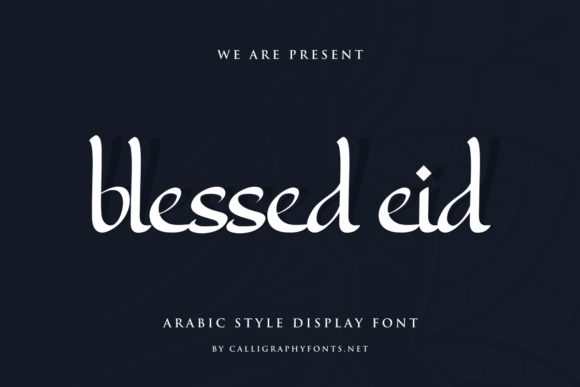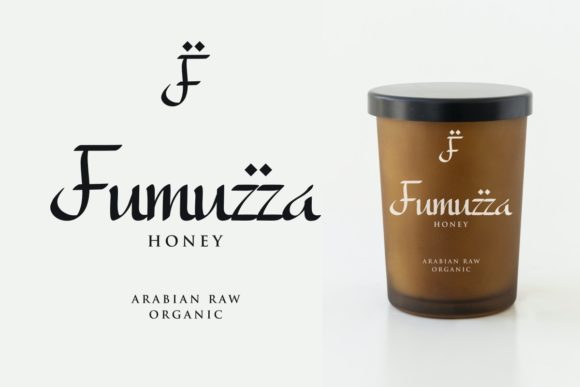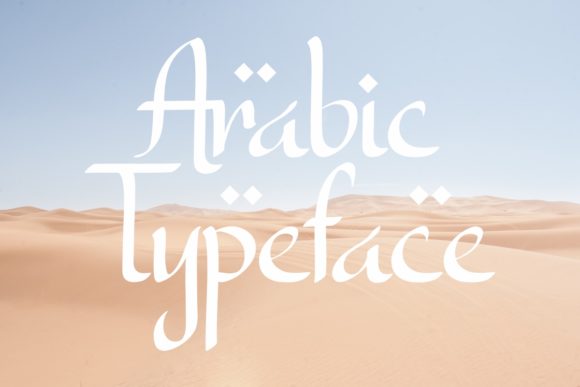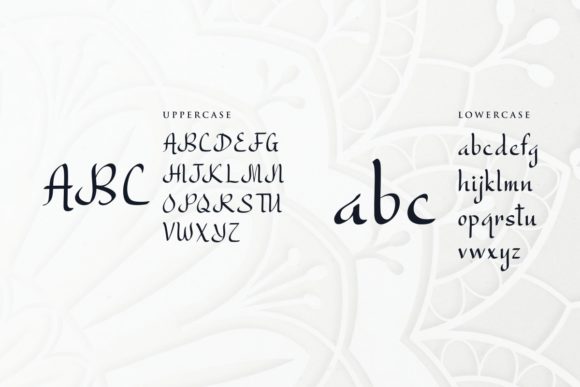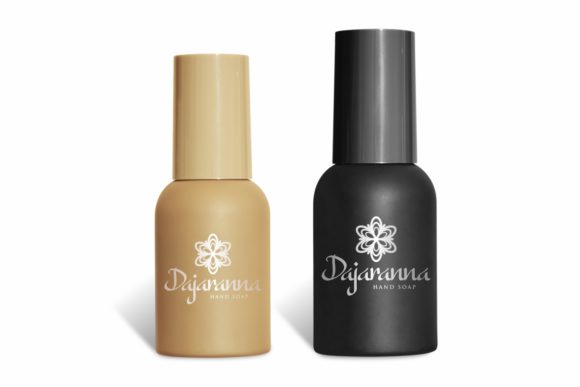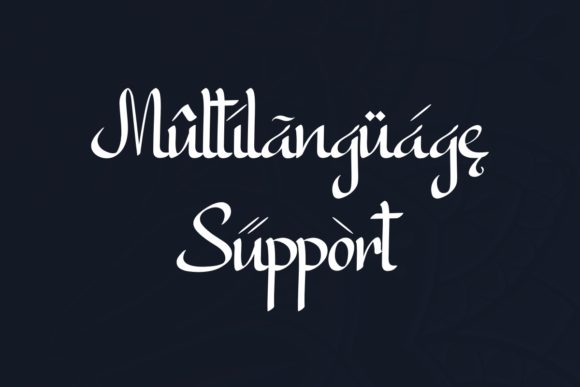
The Eid Font That Stole My Heart: A Deep Dive into Blessed Eid Font
I’ll never forget the design project that led me to discover Blessed Eid Font. I was working on a luxury brand campaign, aiming to create an elegant and modern visual identity. The challenge? Finding the perfect Arabic calligraphy font that would resonate with my client’s cultural heritage while exuding sophistication. After hours of scouring font libraries and marketplaces, I stumbled upon Blessed Eid Font – and my design woes disappeared instantly! ✨
Blessed Eid Font has been a game-changer for my designs. Here’s what I love about it:
• ✅ Elegant and luxurious feel, perfect for high-end brands and designs
• ✨ Modern style that sets it apart from traditional Arabic calligraphy fonts
• ✅ Highly versatile and adaptable to various design contexts
• ✅ Exceptional legibility, even at smaller font sizes
While Blessed Eid Font has won my heart, it’s not without its quirks:
• ⚠️ Some users might find the font’s elegance and luxury feel a tad too ornate for casual designs
• 🤔 Limited availability of certain glyphs and special characters, which might require additional font pairing
If you’re looking for fonts with a similar personality to Blessed Eid Font, consider these alternatives:
• Amiri: A classic Arabic calligraphy font with a traditional feel, ideal for formal and cultural designs
• Almendra: A elegant and luxurious script font with Arabic influences, suitable for high-end branding and advertising
• Shamim: A modern and sophisticated Arabic calligraphy font, perfect for designs requiring a touch of elegance and sophistication
• Lateef: A traditional Arabic calligraphy font with a warm and inviting feel, great for cultural and educational designs
Blessed Eid Font was crafted with the goal of creating a modern, elegant, and luxurious Arabic calligraphy font that would cater to the needs of designers and brands. The font’s creator drew inspiration from traditional Arabic calligraphy, infusing it with a contemporary twist to make it suitable for a wide range of design applications.
What makes Blessed Eid Font unique? Blessed Eid Font boasts a distinctive blend of traditional Arabic calligraphy and modern elegance, making it perfect for designs requiring a touch of luxury and sophistication.
Is Blessed Eid Font suitable for body text? While Blessed Eid Font is exceptional for headlines and titles, its elegance and luxury feel might make it less suitable for lengthy body text. Consider pairing it with a complementary font for optimal readability.
Does Blessed Eid Font support OpenType features? Yes, Blessed Eid Font supports OpenType features, including stylistic alternates, glyphs, and other advanced typography features, allowing for enhanced creative control.